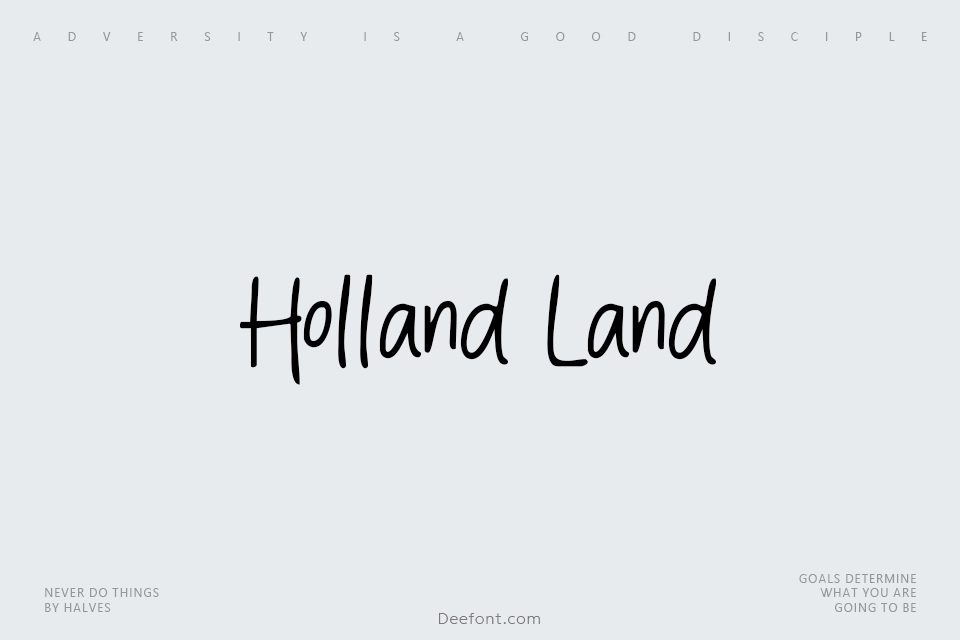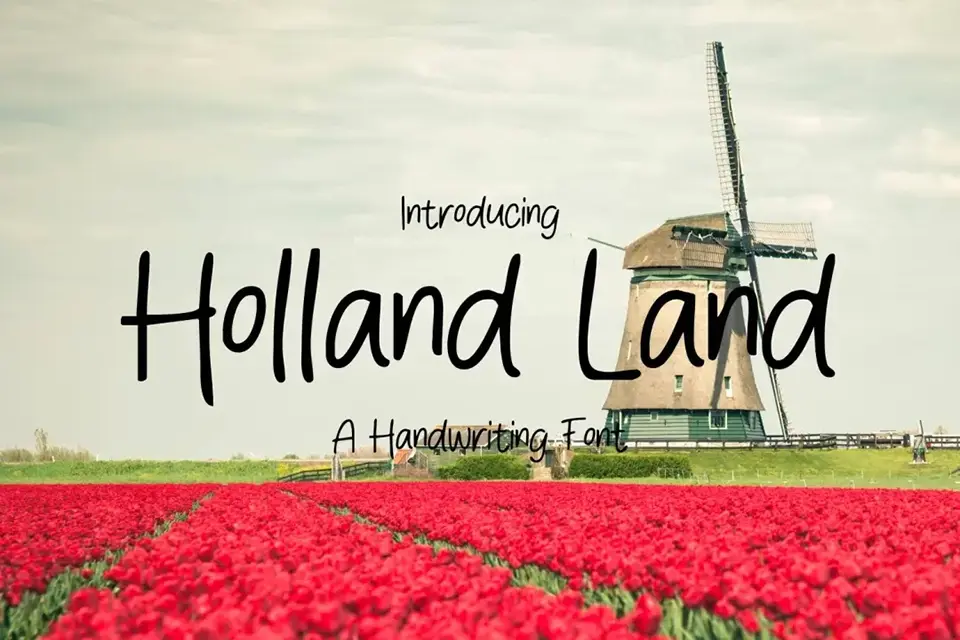
Holland Land Font
Holland Land is a graceful handwritten script typeface that combines elegant curves with contemporary charm. Designed for creative professionals, this versatile font delivers sophistication in signatures, branding, and typographic projects. With its flowing strokes and natural handwritten quality, Holland Land adds personality and warmth to any design composition while maintaining professional appeal.